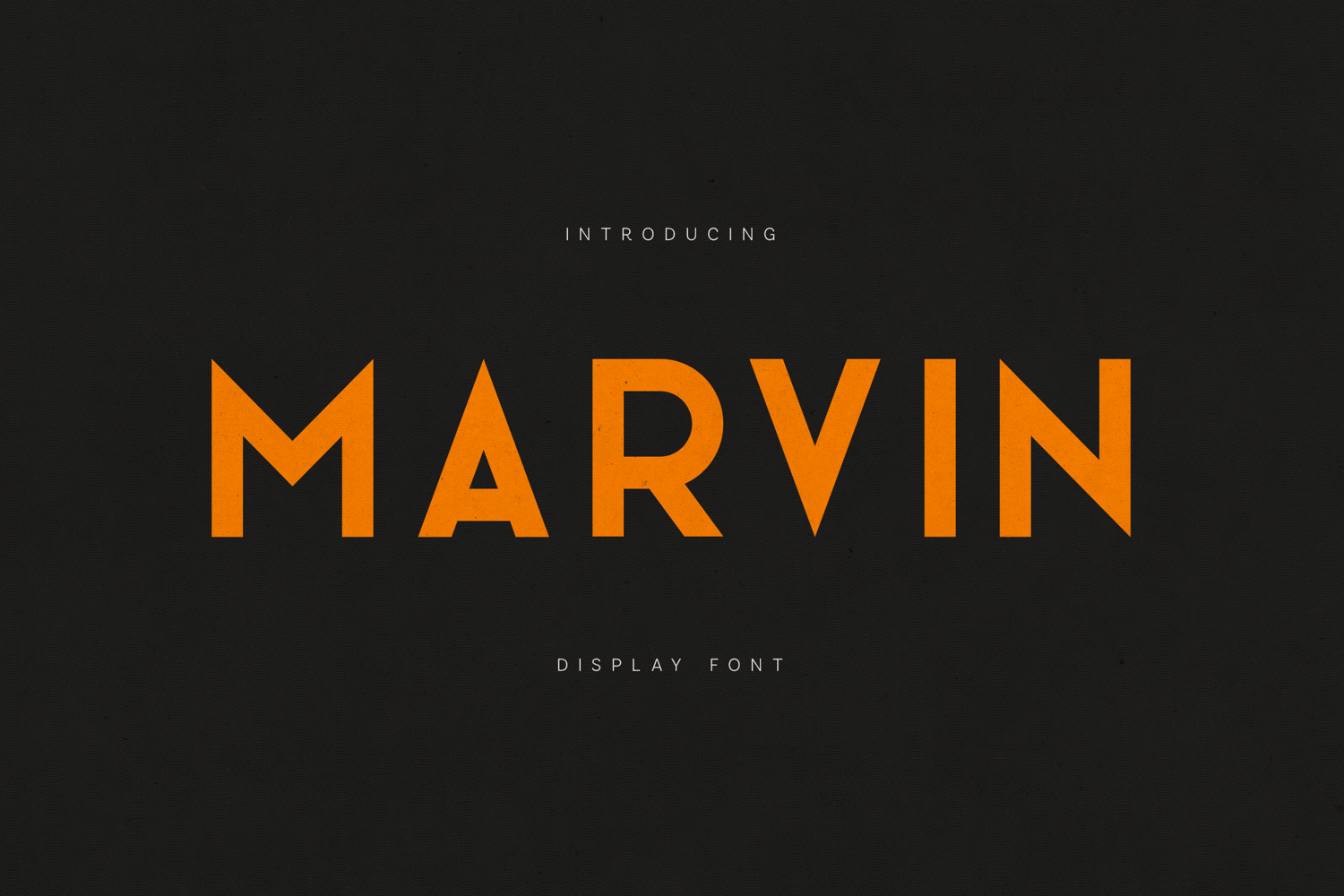
Marvin Bold Modern Geometric Display Font
Marvin is a bold modern display typeface designed with strong geometric forms and clean structural simplicity.
The font features solid letterforms, balanced proportions, and confident shapes that create a powerful visual presence. Its minimal construction and contemporary geometry give the typeface a strong, versatile character suitable for impactful typography.
Marvin was created for projects where clarity, strength, and modern style are essential. The clean strokes and well-balanced spacing allow the font to work beautifully in large sizes while maintaining excellent readability.
With its bold personality and modern aesthetic, Marvin is perfect for branding, posters, headlines, and contemporary design work that requires a strong typographic voice.
Perfect For
• Posters
• Branding
• Logos
• Headlines
• Sports graphics
• Streetwear design
• Packaging
• Social media visuals